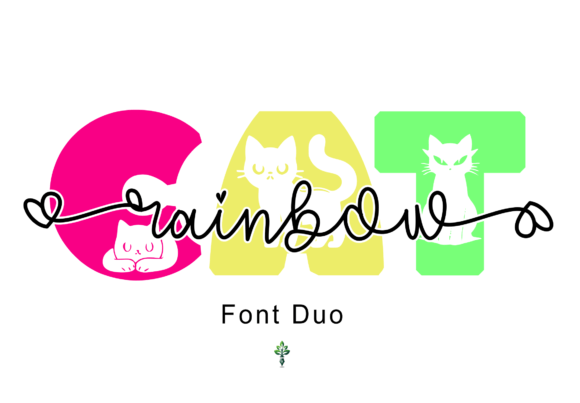
Falling in Love with Cat Rainbow Font: A Designer’s Dream Come True
I’ll never forget the frustration I felt while working on a project, searching for the perfect font to bring my design to life. My client wanted something unique, something that would make their brand stand out, but I was stuck in a sea of generic typefaces. That’s when I stumbled upon “Cat Rainbow” – a font duo that would change the game for me and, I’m sure, for many designers out there.
The Cat Rainbow Difference
Fulfill your typographical desires with “Cat Rainbow” – an outstanding duo of typeface styles coalesced to incorporate the perfect splash of originality in your design endeavors. Drawing inspiration from the smooth, gentle flow of human script, it adds an inviting, warm embrace to your textual content. Cat Rainbow blossoms with a lively script display, exuding a charm that is hard to resist, hence introducing a revitalizing twist in your designs.
- ✨ Unique and eye-catching design that instantly grabs attention
- ✅ Highly versatile and adaptable to various design projects
- 💫 Beautifully crafted to add a touch of elegance and sophistication
- 🎨 Extensive range of OpenType features and glyphs for creative freedom
While Cat Rainbow is an exceptional font duo, there are a few minor considerations to keep in mind:
- ⚠️ Some characters may require manual kerning for optimal results
- 🤔 Limited availability of certain special characters
The Backstory Behind Cat Rainbow
Cat Rainbow was designed with the intention of creating a unique and versatile typeface that would inspire designers to push the boundaries of their creativity. The designer aimed to craft a font that would not only be visually stunning but also highly adaptable to various design projects. By combining the smoothness of human script with a lively and charming display, Cat Rainbow was born – a font duo that is sure to leave a lasting impression.
Q: What makes Cat Rainbow unique?
A: Cat Rainbow’s uniqueness lies in its beautiful blend of script and display features, making it a versatile and eye-catching addition to any design project.
Q: Does Cat Rainbow support OpenType features?
A: Yes, Cat Rainbow comes with a range of OpenType features, including stylistic alternates and glyphs, allowing for extensive creative freedom.
Q: Is Cat Rainbow difficult to read?
A: While Cat Rainbow is a decorative font, it maintains a good level of legibility, making it suitable for body text and headlines. However, for very small sizes or extensive blocks of text, a more straightforward font might be more appropriate.